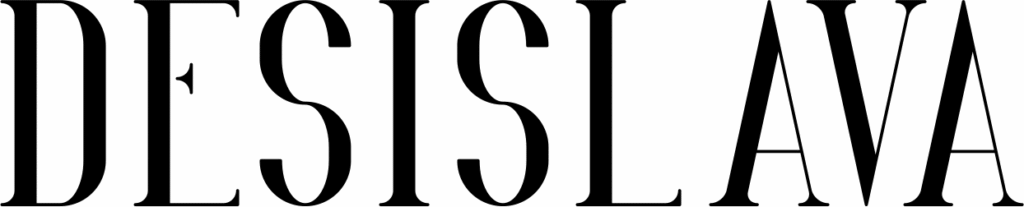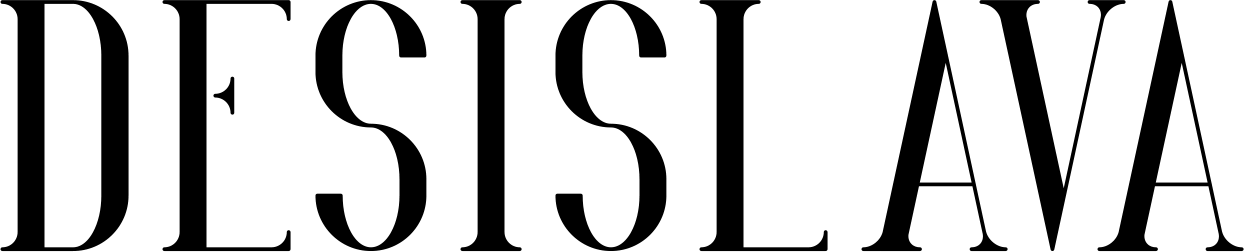
Desislava Font
With a clean and sophisticated design, it has entered the writing field in a set of 2 different versions to attract any reader at first sight. Indeed, this American classic font lacks lowercase and punctuation, but it does not diminish its value and reliability in designing any posters, TV, headlines, etc.
It’s quite clear that the Desislava nourishes all its senses from the serif font, so it not only never goes out of fashion, but also it can have a lasting effect on others.